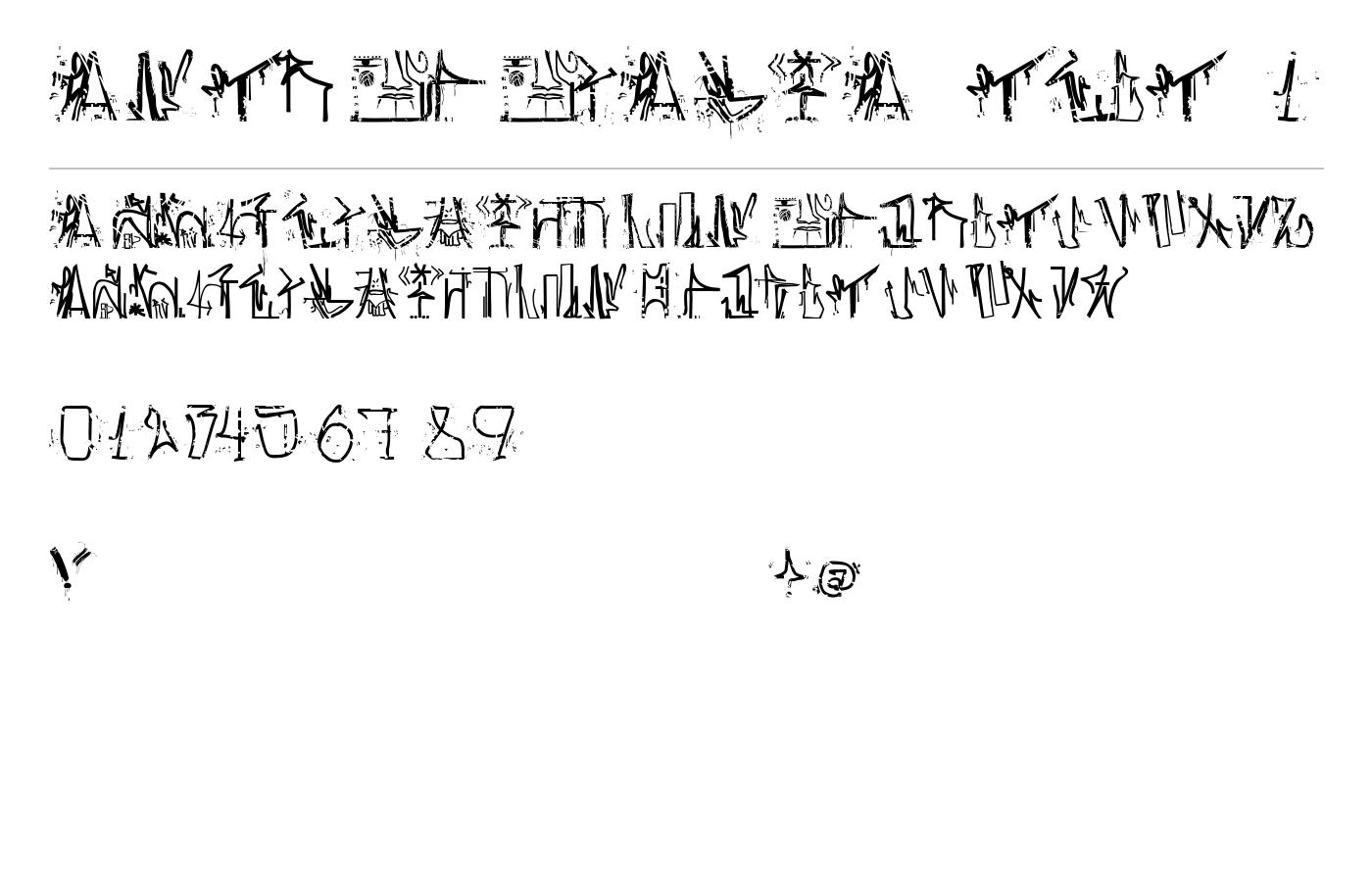
ANTROPOFAGIA TEST 1 is an avant-garde, highly experimental display font with a distressed, fragmented appearance that blends geometric shapes and sharp, erratic lines. Its unconventional, almost abstract letterforms evoke a gritty, rebellious energy, making it ideal for edgy art projects, underground posters, and designs seeking a raw, disruptive vibe. This font’s unique style stands out best in large sizes where its chaotic texture and intricate details can be fully appreciated.